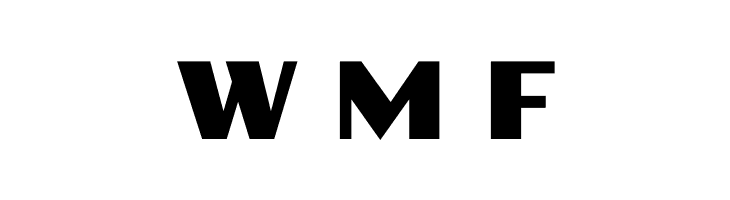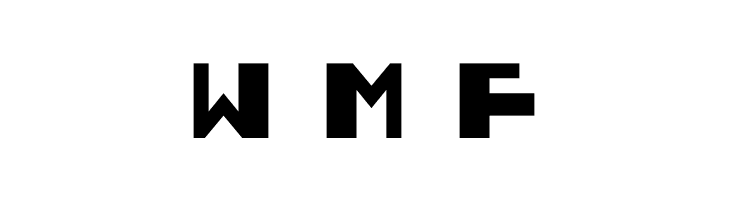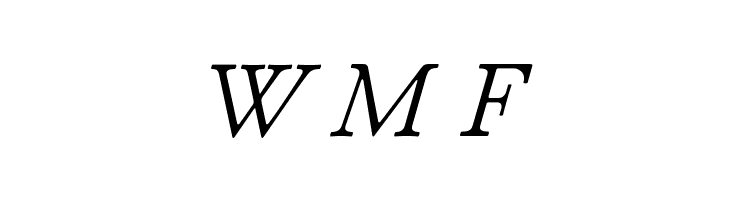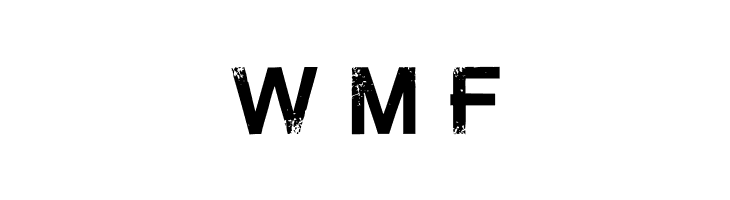
A dynamic script font with fluid, brush-like strokes and elegant curves.
A bold, angular serif font with a vintage yet modern appeal.
A bold, geometric stencil font with an industrial feel.
A dynamic and playful script font with a handwritten feel.
A bold, striped sans-serif font with a modern and dynamic appearance.
A bold, modern sans-serif font with clean lines and geometric shapes.
A bold, geometric font with a modern cut-out style.
A modern, cut-out style font with geometric shapes and sharp angles.
A bold, stencil-style font with a military-inspired, geometric design.
A bold, angular font with a futuristic and decorative style.
A tall, elegant font with high contrast and sharp serifs, ideal for dramatic headlines.
An elegant, flowing script font with a natural handwritten style.
An elegant, italic serif font with a classic, calligraphic style.
A bold serif font with sharp serifs and high contrast, ideal for impactful headlines.
A bold, italicized serif font with angular serifs and a dynamic, calligraphic style.
A bold, brush-style font with dynamic, hand-painted strokes.
A dynamic handwritten font with fluid strokes and playful curves.
A bold, hand-drawn font with an energetic and expressive style.
A bold, dynamic brush-style font with expressive strokes and a hand-painted look.
A bold, brush-style font with dynamic and energetic strokes.
A bold, brushstroke font with a textured, hand-painted look.
A playful and romantic cursive script font with elegant, flowing strokes.
A bold, hand-painted style font with a lively and energetic appearance.
A playful, handwritten font with smooth, flowing curves and a friendly feel.
A bold, brushstroke-style font with dynamic and artistic flair.
A bold, expressive brush-style font with dynamic, hand-painted strokes.
A bold, hand-drawn font with irregular strokes and a dynamic, expressive style.
A flowing, cursive font with a handwritten appearance.
A bold, brush-style font with dynamic, hand-painted strokes.
A playful, handwritten font with a whimsical and casual style.
A graceful, cursive script font with a natural, handwritten style.
A lively, handwritten font with bold, dynamic strokes.
A playful and casual handwritten font with fluid, connected strokes.
A bold, distressed font with a rugged, vintage appearance.
A sophisticated script font with elegant, flowing cursive strokes.